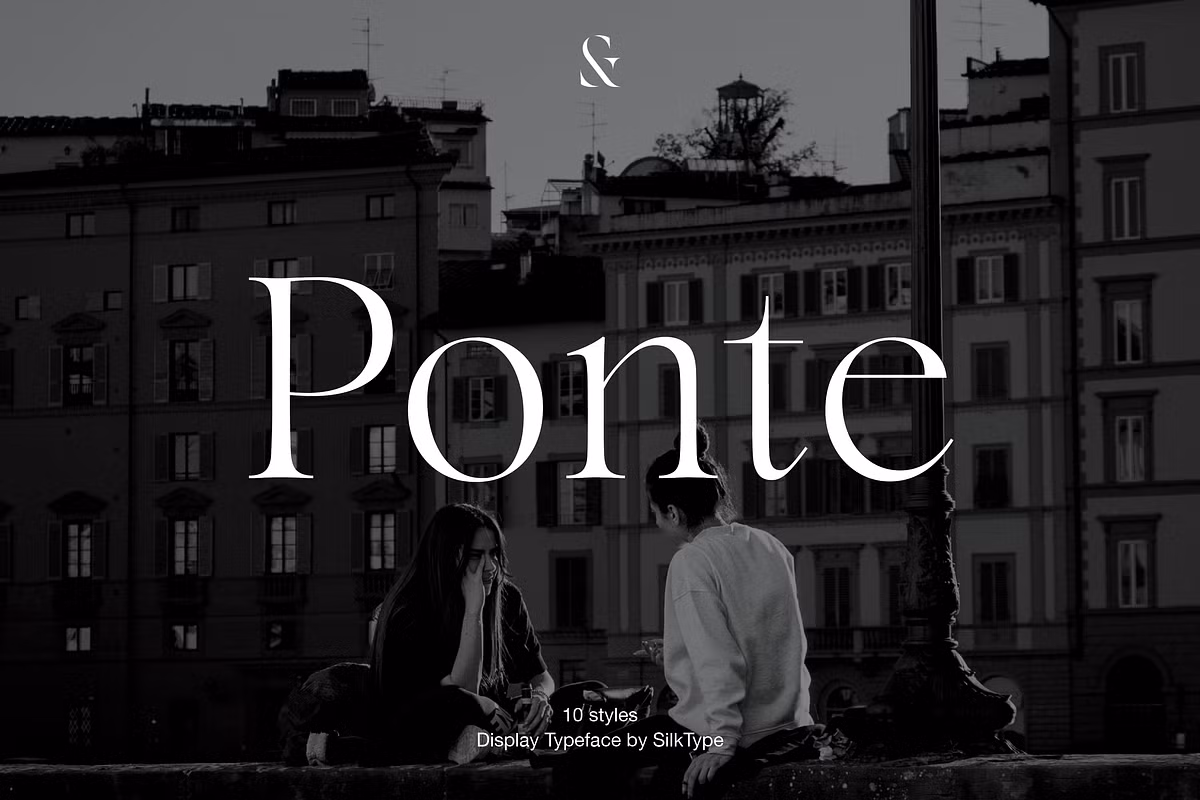
Ponte: High-Contrast Display Typeface for Impactful Headlines
Ponte is a display typeface, with contrast and smooth serifs. Ponte helps the headlines stand out. Ponte includes ten styles. Ponte lets the designers try design ideas. Designers use Ponte to make a statement in the work. When I need a look, for a title I reach for Ponte because the high contrast and smooth serifs give the text a presence. I have used Ponte for my headlines. Ponte works well.
Ponte typeface showcased in a design.
I notice that the design of Ponte follows rules and adds modern looks. Ponte high contrast strokes give an impact that catches the eye right away. Ponte smooth serifs add to the elegance of the typeface making the typeface good for creative work. The designers carefully made each weight of Ponte—from light to bold—so that the character of the typeface stays the same across the range. Attention to detail improves legibility. Adds a touch of sophistication that can lift any design project.
The high contrast, in stroke width makes the typeface stand out. I use the typeface for headlines that need to deliver a message clearly.
Character Sets and Decorative Ligatures
Ponte has a character set that includes letters, lowercase letters, numbers and punctuation marks. Ponte also has more than 80 ligatures. The ligatures add a style to your typography. Help the text flow smoothly. The ligatures give a look. The ligatures bring a sense of harmony and craft to the text.
Examples of Ponte’s decorative ligatures.
The availability of both italic styles, across five weights gives the flexibility to express tones and moods in the designs. A bold headline or a subtle subheading can use Ponte’s character sets and ligatures. Ponte’s character sets and ligatures let the headline or subheading achieve the desired effect without effort.
I find that using ligatures adds interest to the text. The decorative ligatures make the text stand out. I also find Ponte works for branding, editorial design and any project where typography matters. Ponte is a choice for branding, editorial design and any project that relies on typography.
Ponte is ready for tasks. We made Ponte versatile so Ponte can fit the jobs. Below are the main ways that Ponte works well:
• Editorial Design: I see that for the magazines for the newspapers, for the articles Ponte’s bold headlines draw the readers in. I see that Ponte’s bold headlines set the tone for the content.
• Branding: I have seen Brands that want a clear visual identity use Ponte, for logos, packaging and advertising materials. Brands make the message stand out with Ponte.
• Flyers: The high contrast look of Ponte makes Ponte perfect for event promotions. When you use Ponte on a flyer Ponte catches attention fast. That is essential.
• Web Design: Ponte can improve the user experience on a website. I have used Ponte in hero sections. In call-to-action buttons. Ponte makes the headline clear when the headline is important.
Ponte used in web design applications.
In each scenario Ponte works as a typeface. Ponte also serves as an element of communication. Ponte helps the message become clear and easy to understand.
Pairing Suggestions for Ponte
When you design with Ponte you need to think about how Ponte works with the typefaces. I always check how Ponte looks next to the typefaces to get a visual composition. Here are a few pairing suggestions:
• Ponte with Sans-Serif: I have found that pairing Ponte with a clean sans-serif typeface like Helvetica or Open Sans gives a look. Ponte catches the eye as the headline. The sans-serif typeface works in the body text. Balances the design.
• Ponte with a Serif Typeface: Ponte with a serif typeface such as Times New Roman combines to create a classic feel. The classic feel works well for print media.
• Ponte with Another Display Typeface: You can pair Ponte with another display typeface that looks different but has the weight. Ponte and the other display typeface together create a hierarchy.
Experimenting with different combinations can lead to unique and captivating designs that leverage Ponte’s strengths while maintaining readability and aesthetic appeal.
Ponte is more than a typeface; Ponte is a tool for the designers who want to make headlines that connect with the audience. Ponte has a contrast design, a set of letters and fancy combined letters that give Ponte many uses for many kinds of work. When you are working on magazine articles, logo work or website design Ponte gives the class and beauty needed to make the text look good. Ponte works well.